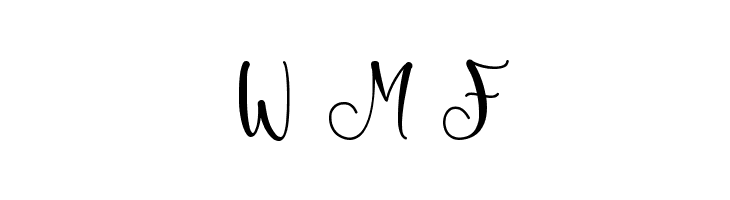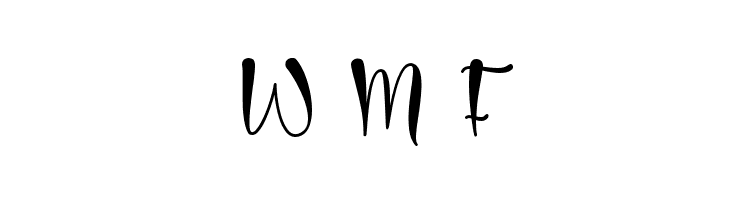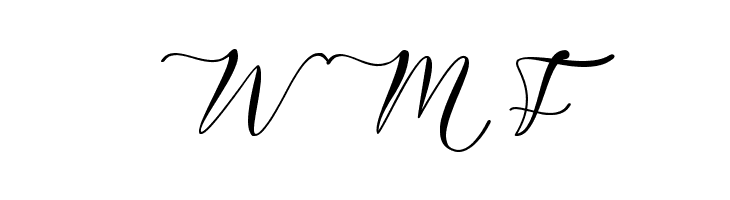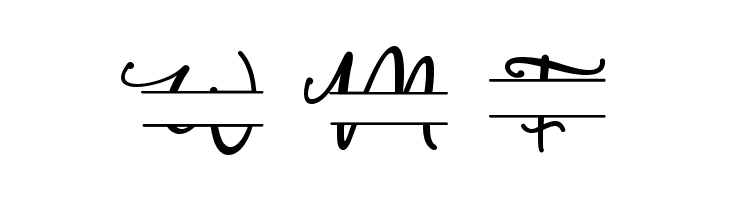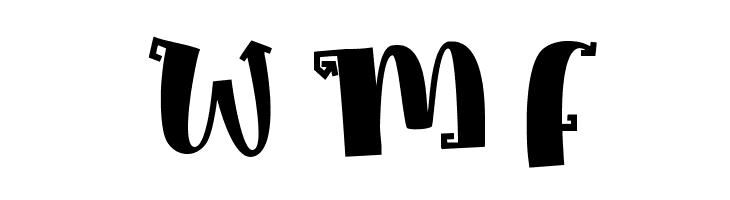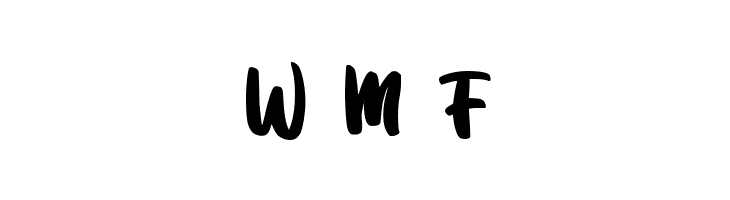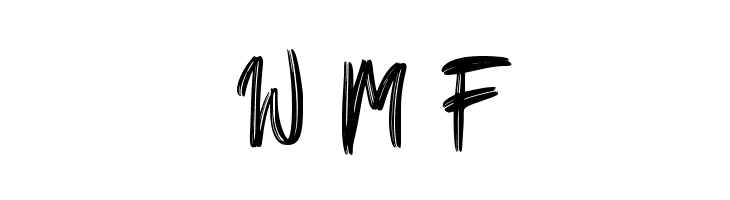
• Aisy Khadijah
An elegant script font with flowing curves and decorative swirls.
• Aisyah
A bold, handwritten font with dynamic strokes and playful contrast.
• Aisyah Demo
A graceful and elegant script font with flowing, interconnected letters.
• Aiuruoca
A bold, modern font with geometric cuts and high contrast.
• Aiytha Personal Use
An elegant script font with flowing, intricate loops and high contrast strokes.
• Aiza Shine Serif Demo
A whimsical, hand-drawn font with tall, narrow characters and playful details.
• AJ Signal
A bold, slanted font with a dynamic and modern style.
• Aja Males
A bold, playful handwritten font with a dynamic and energetic feel.
• Ajanta Regular
A bold, 3D geometric font with shadowed outlines for a striking effect.
• Aji Hand
• Ajinomote
A graceful and elegant script font with flowing cursive letterforms.
• Ajuslly
A playful and whimsical script font with decorative loops and flourishes.
• akaArcade
A whimsical and decorative font with playful swirls and loops.
• akaChen
A bold, impactful font with strong, thick strokes and a modern classic appeal.
• Akagami
A playful, whimsical script font with smooth, flowing lines and a hand-drawn appearance.
• Akagami
A playful, handwritten script font with a whimsical and elegant style.